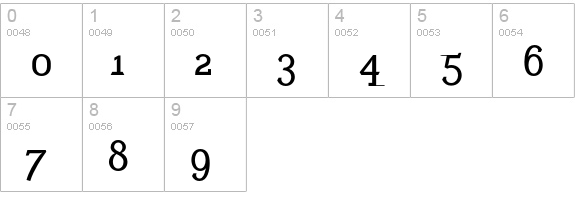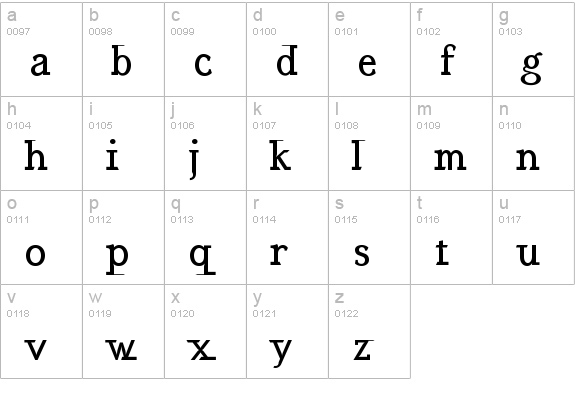
EquipoizeSerif-Regular Font Details
EquipoizeSerif-Regular is the standard, neutral variant in the EquipoizeSerif typeface family \xE2\x80\x94 well suited to general body text, paragraphs, and standard typographic work.
EquipoizeSerif-Regular font is a versatile and elegant typeface that combines classic serif elements with a modern twist. Its clean lines and balanced proportions make it perfect for a wide range of design projects, from branding to editorial design. The sophisticated serifs add a touch of sophistication, while the overall simplicity ensures readability across various mediums. What sets EquipoizeSerif-Regular font apart is not only its timeless design, but also its accessibility. This font is available for free download at FontsMarket.com, making it a valuable addition to any designer's toolkit. Whether you're working on a print project or a digital design, EquipoizeSerif-Regular font will help you achieve a polished and professional look effortlessly. With its wide range of weights and styles, EquipoizeSerif-Regular font offers flexibility and versatility, allowing you to create cohesive and visually appealing designs. Whether you're looking to elevate your typography game or simply want a reliable go-to font, EquipoizeSerif-Regular is a must-have in your collection. Download it for free today and start exploring the endless possibilities this font has to offer.